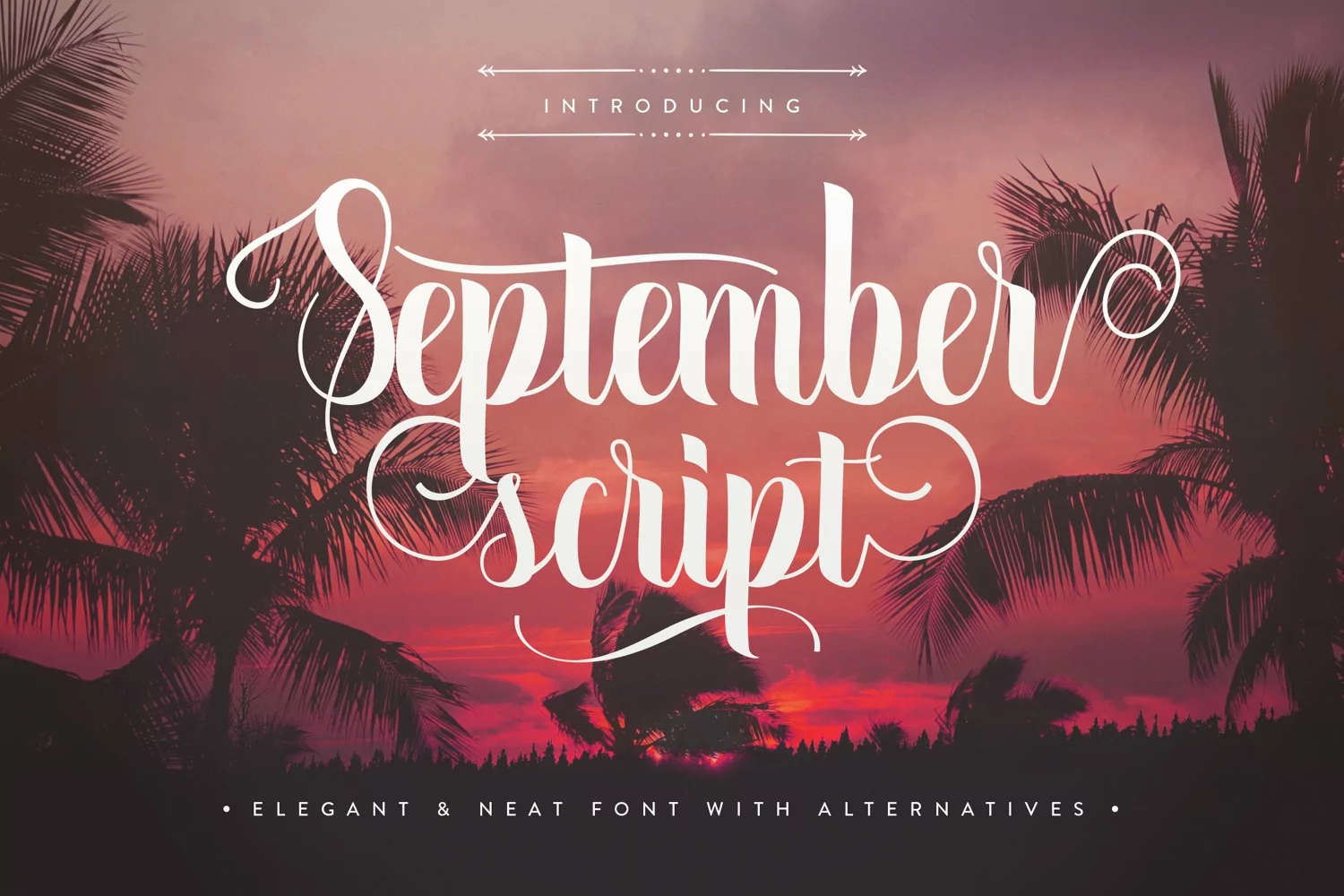
The September Script font is high on style and low on hassle. There are a lot of swirls and swashes to enhance your text's designs. The calligraphy styled characters add a vintage vibe with attention to the various line widths. All of the extras make this font elegant and full of class.